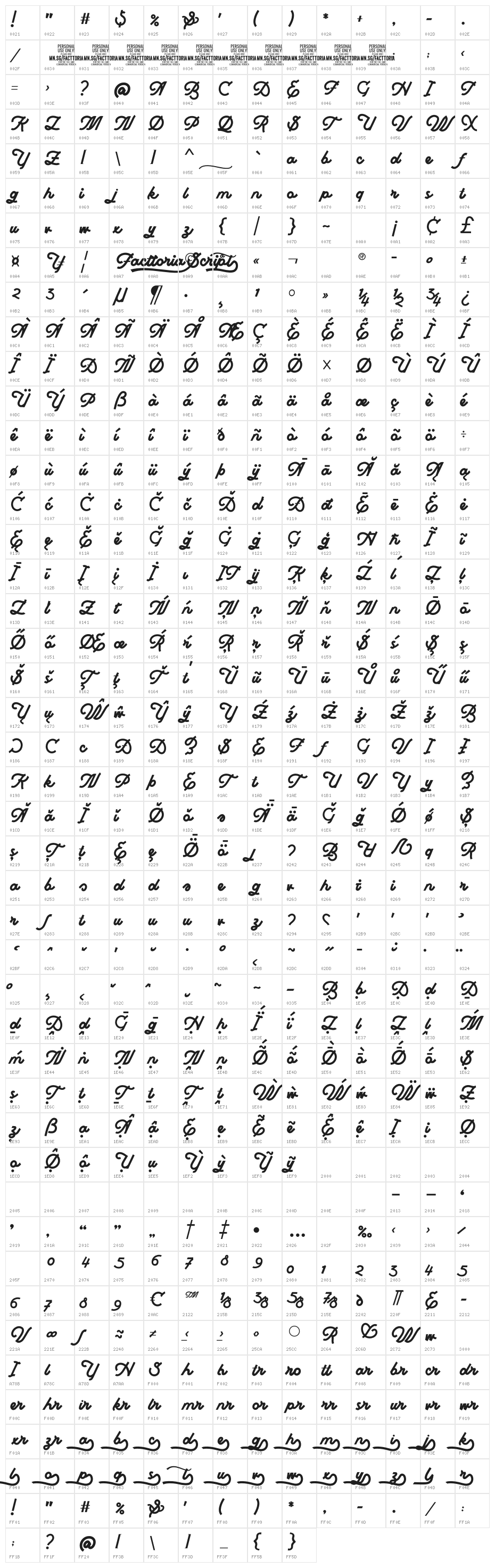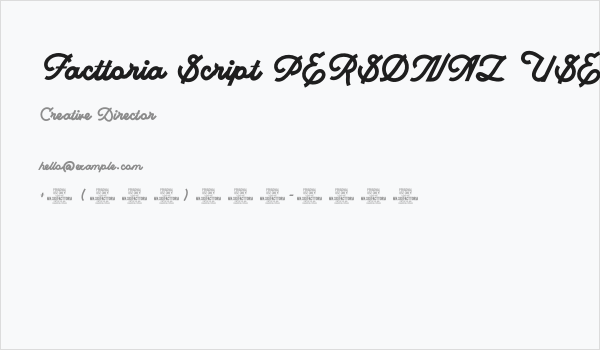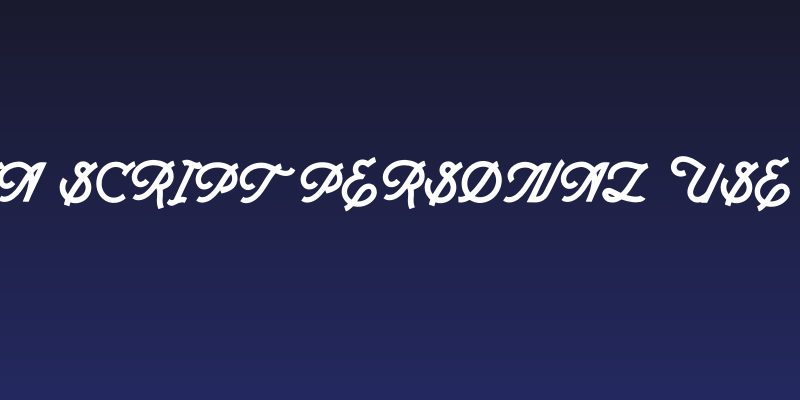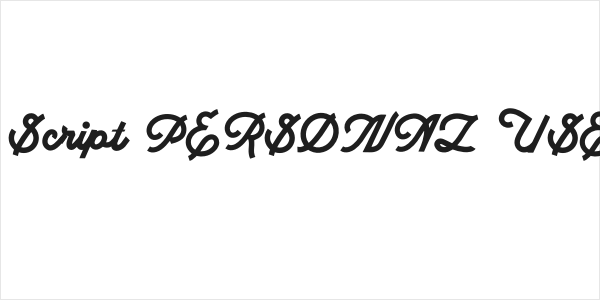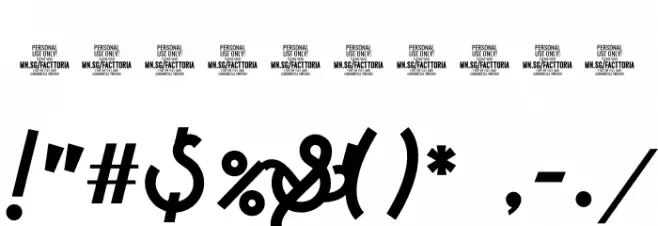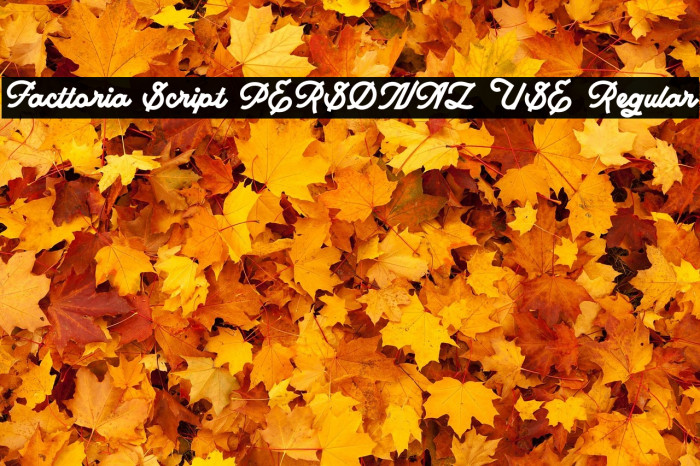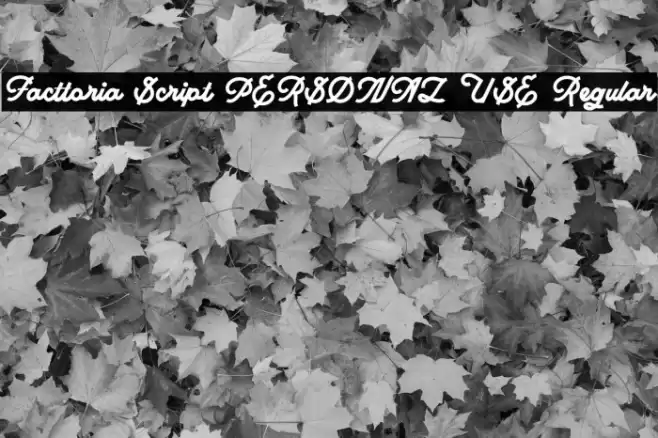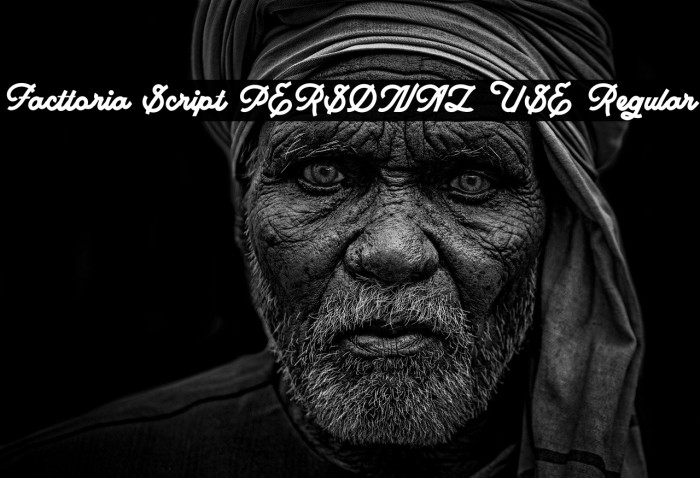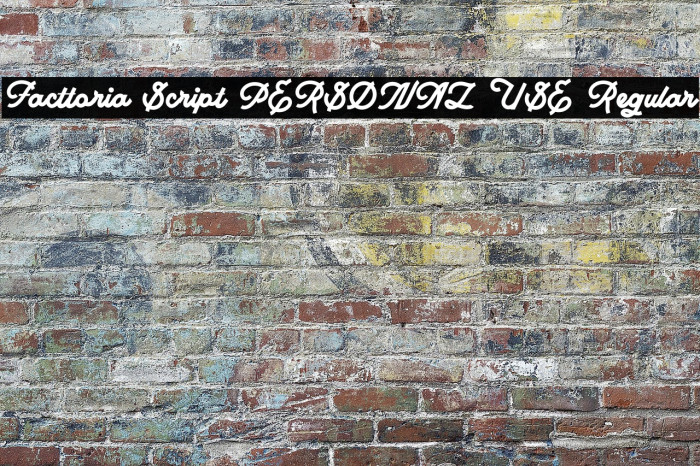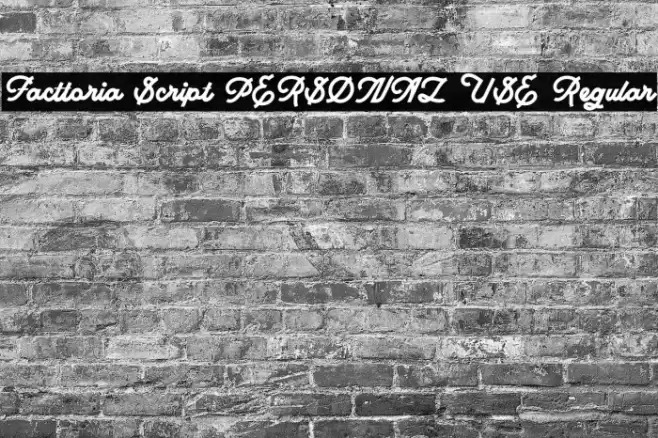
Facttoria Script PERSONAL USE Regular Font
Facttoria Script PERSONAL USE Regular Description
This font features a bold, cursive style with a strong emphasis on fluidity and elegance. The uppercase letters are intricately designed with sweeping curves and flourishes, giving them a dynamic and sophisticated appearance. The lowercase letters maintain a consistent flow, enhancing readability while retaining a stylish flair. The numbers and special characters are crafted to match the overall aesthetic, ensuring a cohesive look across all text. This script font exudes a sense of creativity and artistic expression, making it ideal for projects that require a touch of elegance and personality.